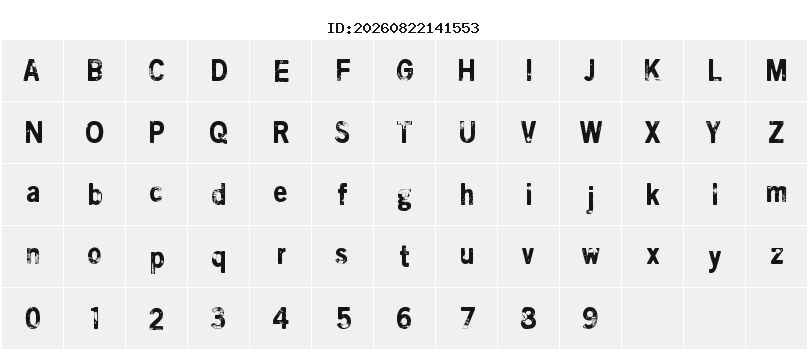
Scratch X Preview
• Font Name: Scratch X
• Full Font Name: Scratch X
About Scratch X.ttf
Scratch X.ttf is a modern, elegant sans-serif font designed for ultimate readability and visual harmony. Perfect for branding, headlines, web design, and print materials.